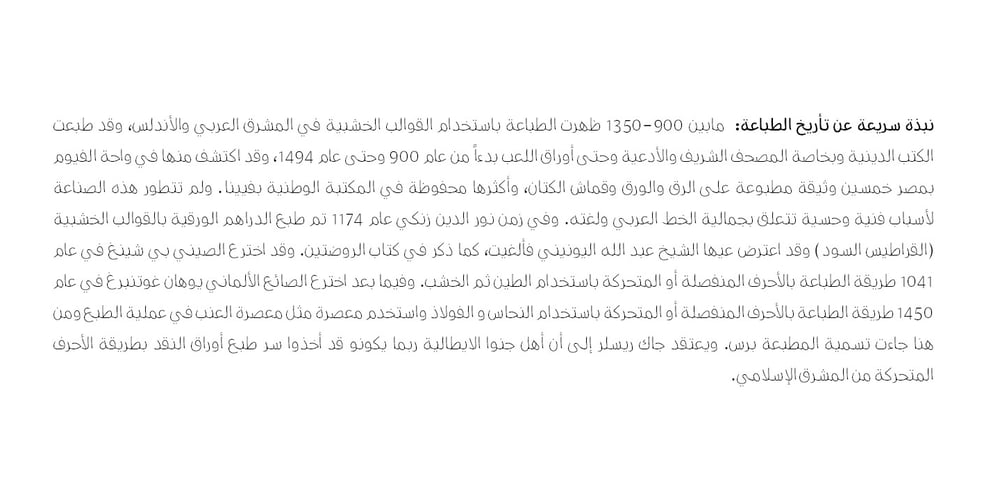
Sada
Sada font
Sada Font Family was designed by Saad D. Abulhab and published by Arabetics. Sada contains 6 styles and family package options. Sada is a text font designed with hand held devices and ebooks in mind. Glyphs are designed to be larger than usual and very clear with soft visual characteristics and many traditional Arabic calligraphic transitional features incorporated to improve legibility. The word “sada” means “echo” in Arabic. Even though Sada is a cursive style font it offers clearly distinguished and visually unified letter shapes in every position of a word. Sada supports all Arabetic scripts covered by Unicode 6.1, and the latest Arabic Supplement and Extended-A Unicode blocks, including support for Quranic texts. It comes with three weights, regular, bold, and ultra-light. Each weight has normal and left-slanted “italic” styles. The script design of this font family follows the Arabetics Mutamathil Taqlidi style and utilizes varying x-heights. The Mutamathil Taqlidi type style uses one glyph per every basic Arabic Unicode character or letter, as defined by the Unicode Standards, and one additional final form glyph, for each freely-connecting letter in an Arabic text. Sada includes the required Lam-Alif ligatures in addition to all vowel diacritic ligatures. Sada’s soft-vowel diacritic marks (harakat) are only selectively positioned with most of them appearing on similar lower or upper positions to emphasize they are not part of letters. Kashida is zero width glyph.